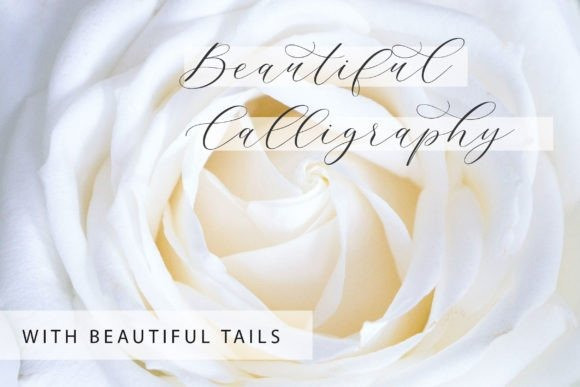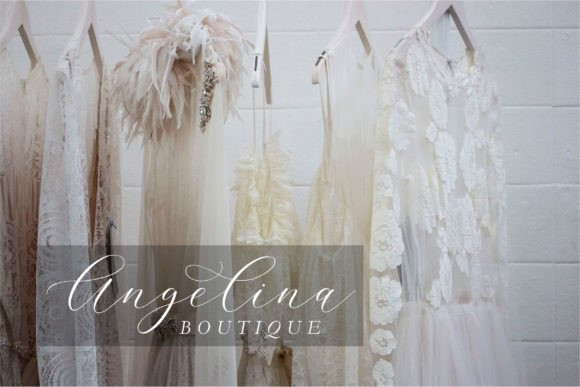
Flantina Font
Flantina Calligraphy Font is a beautiful script font. It has a classy, elegant, and modern look that can be used for logos, branding, invitations, stationary, wedding designs, social media posts, and any other design that requires a handwritten touch.